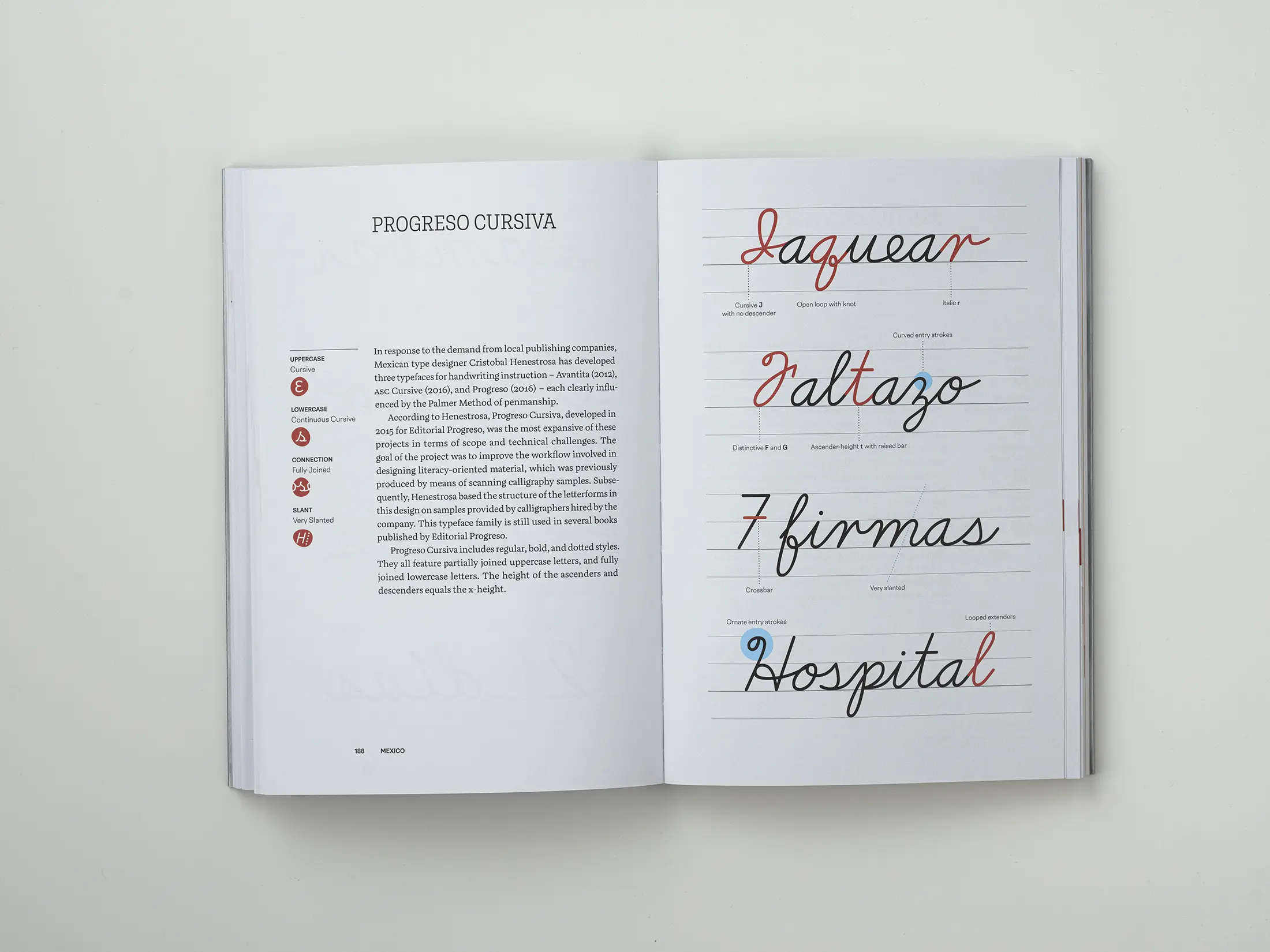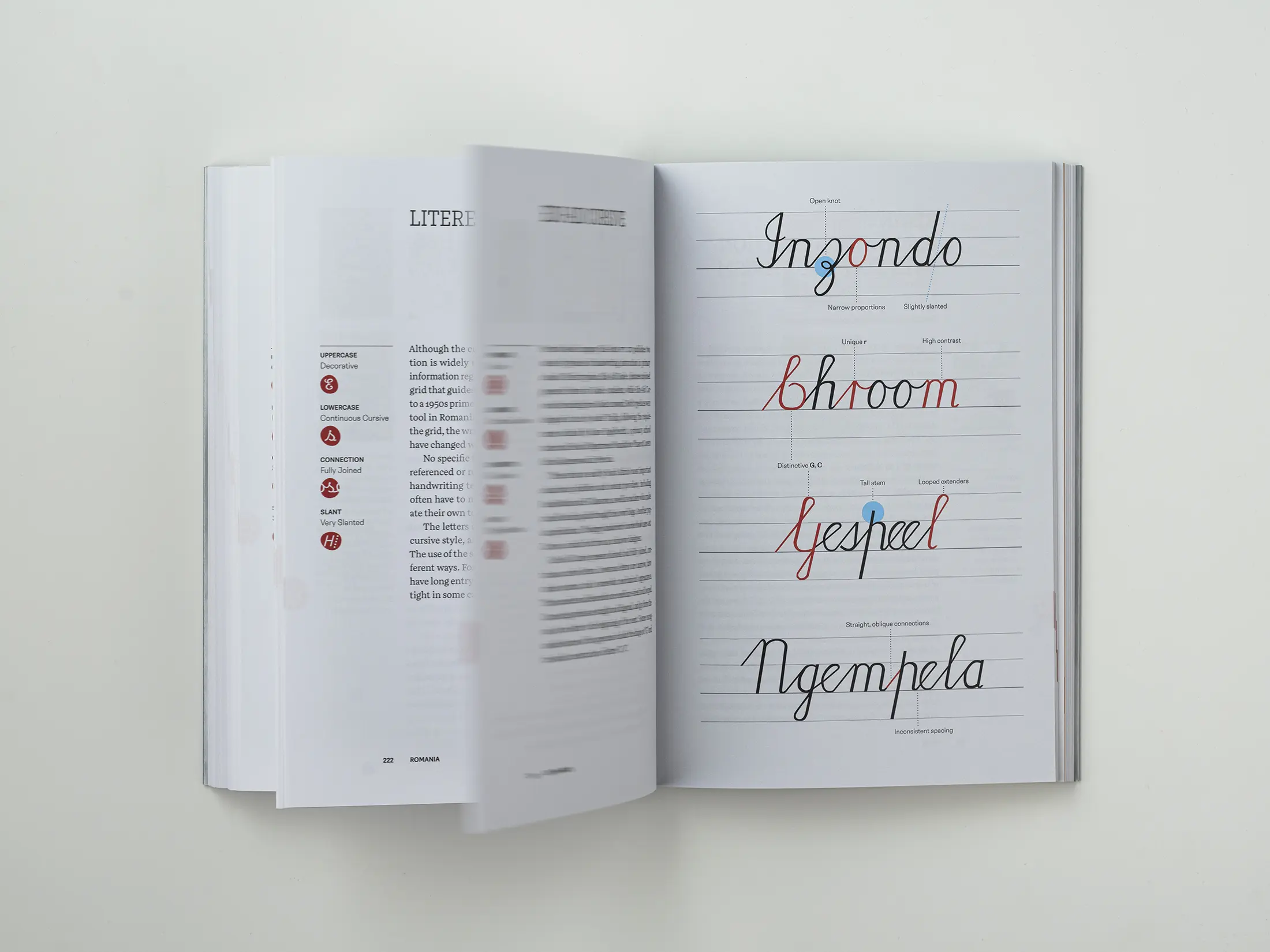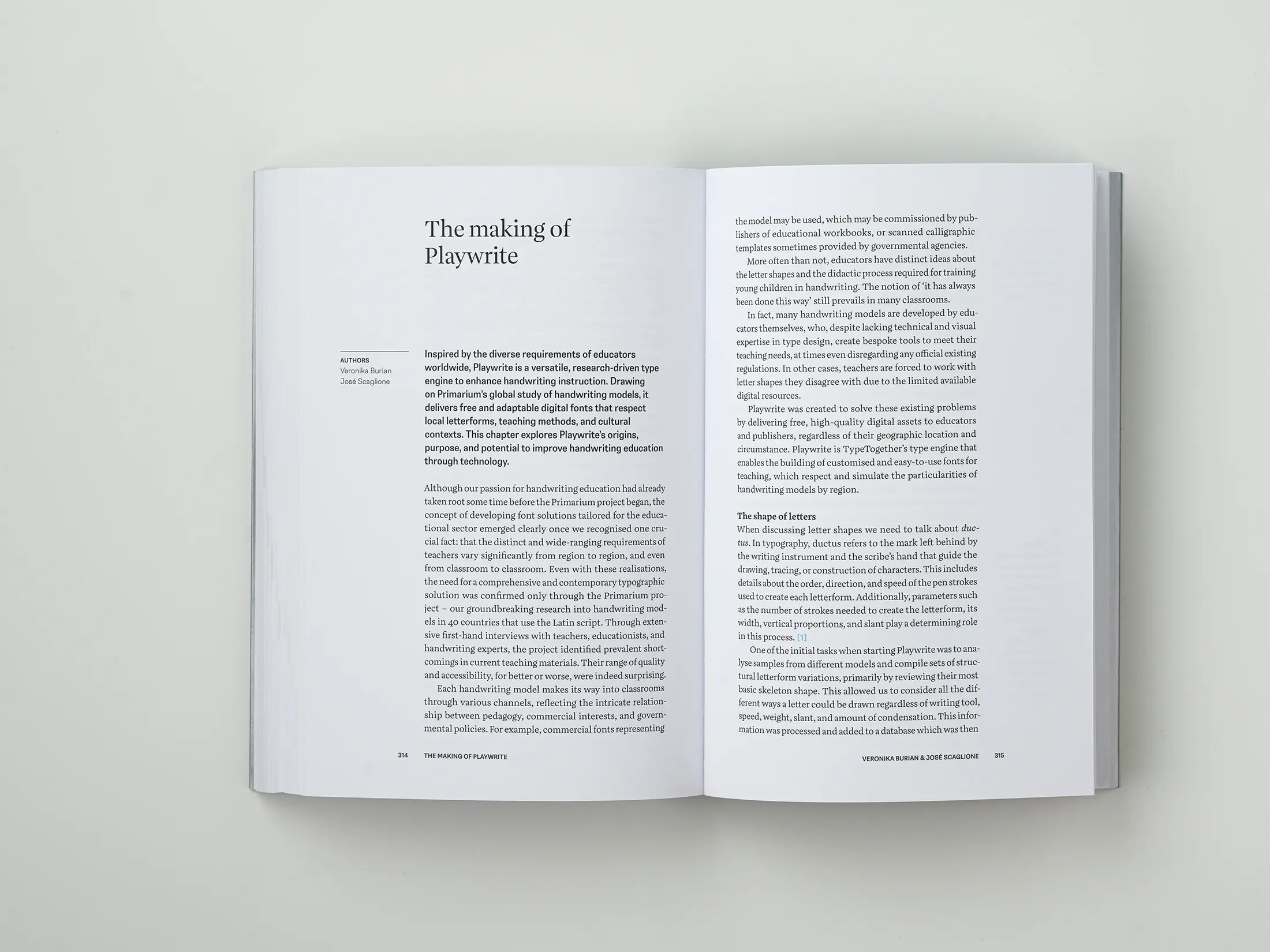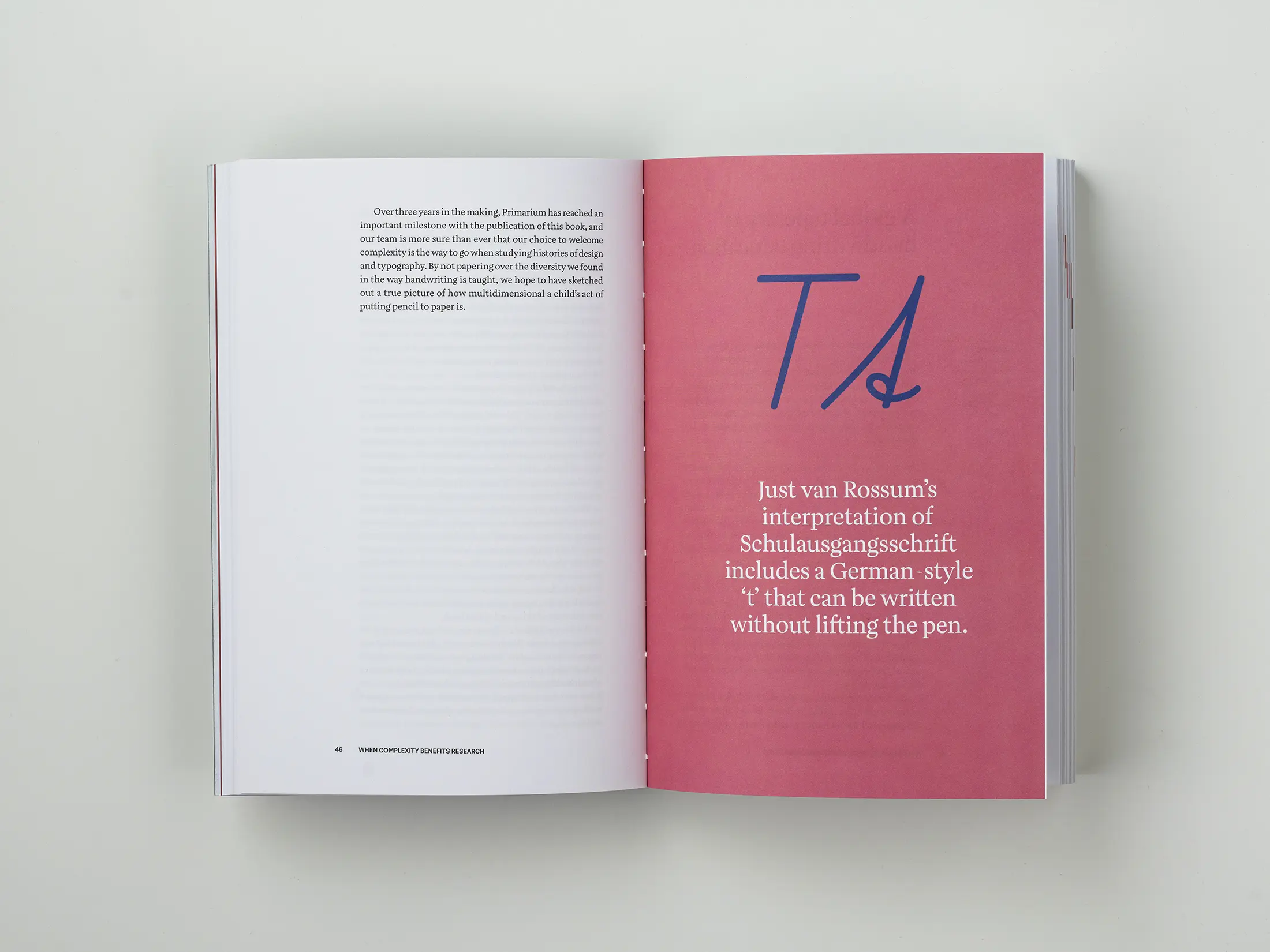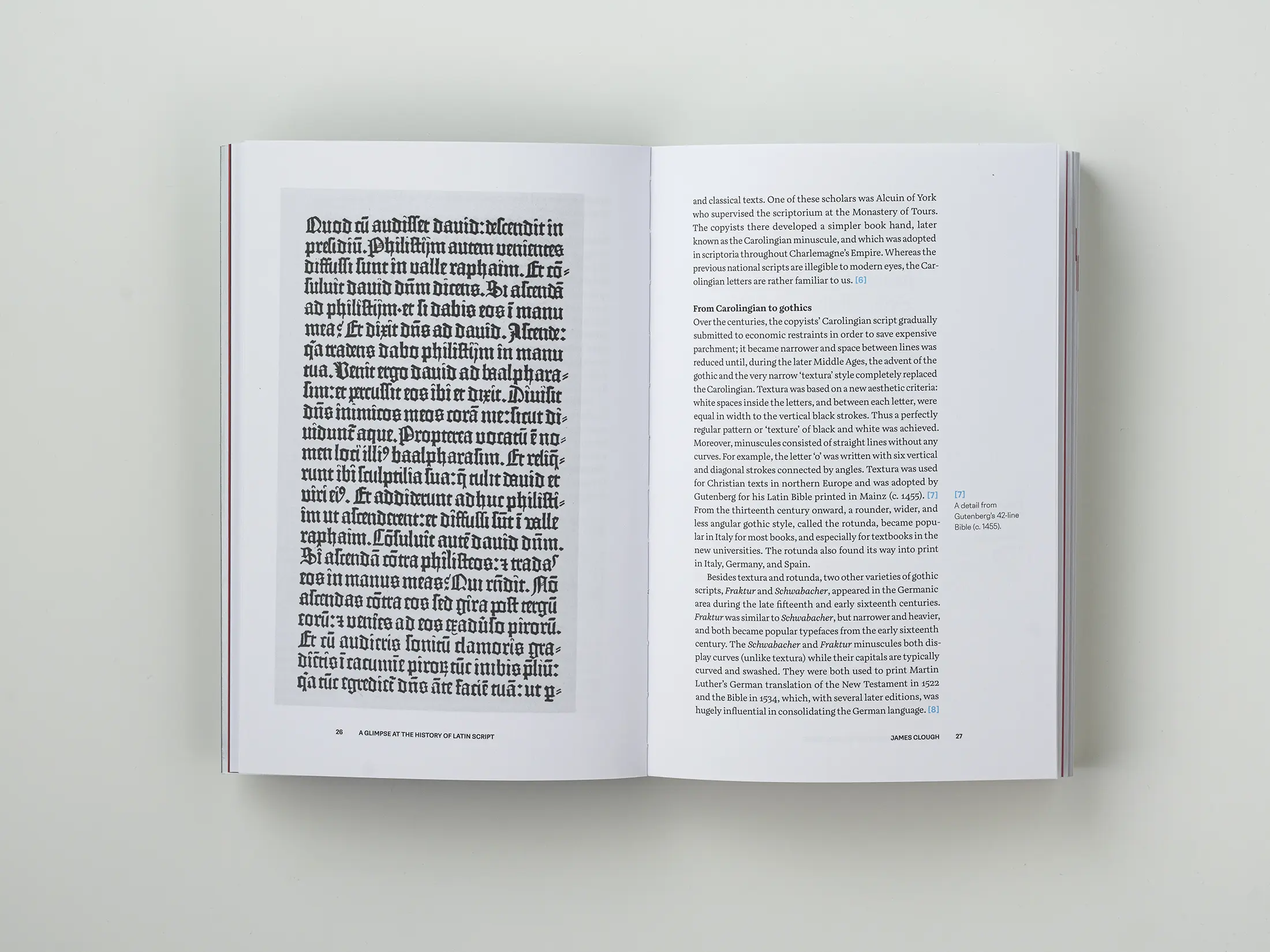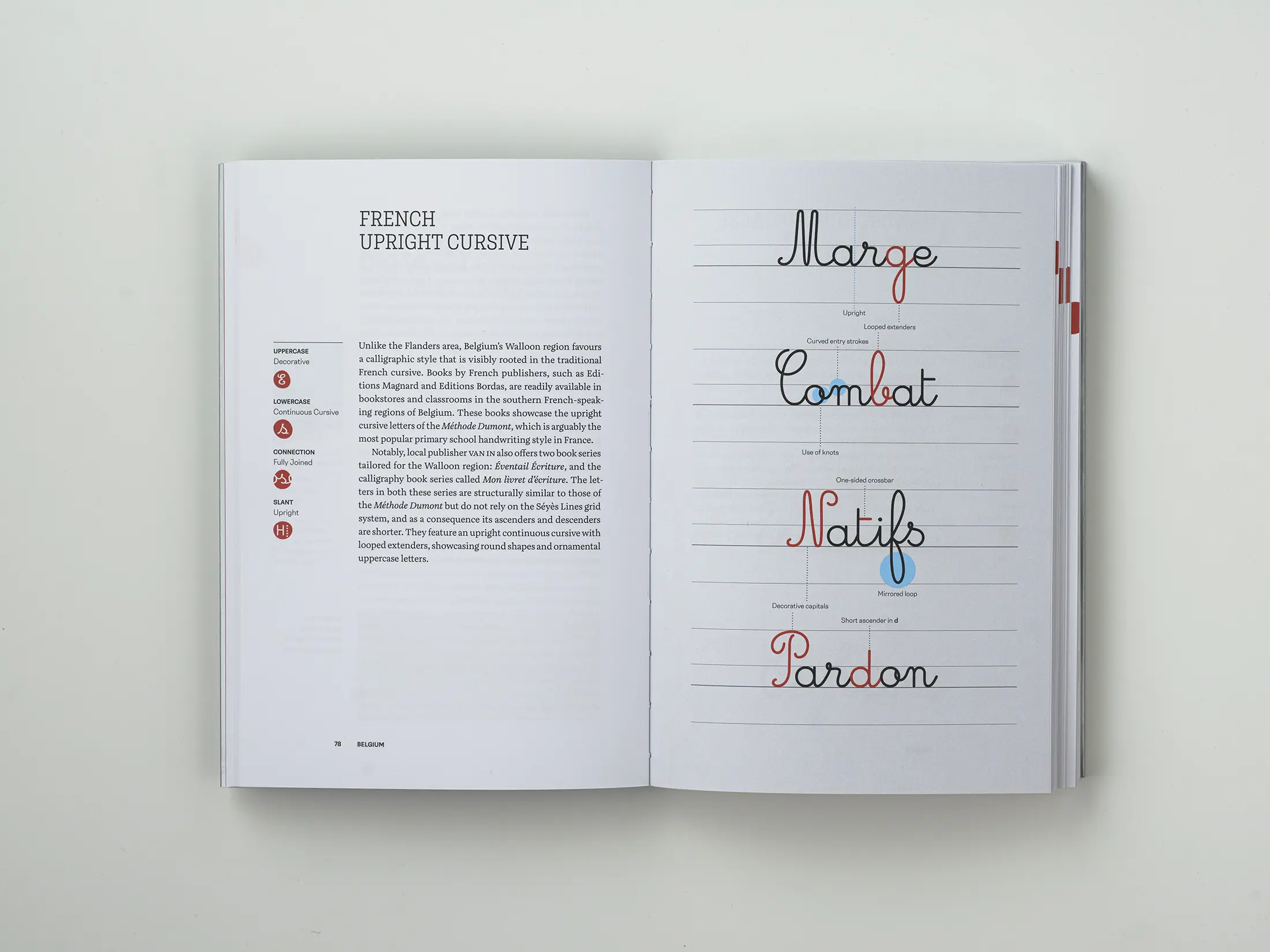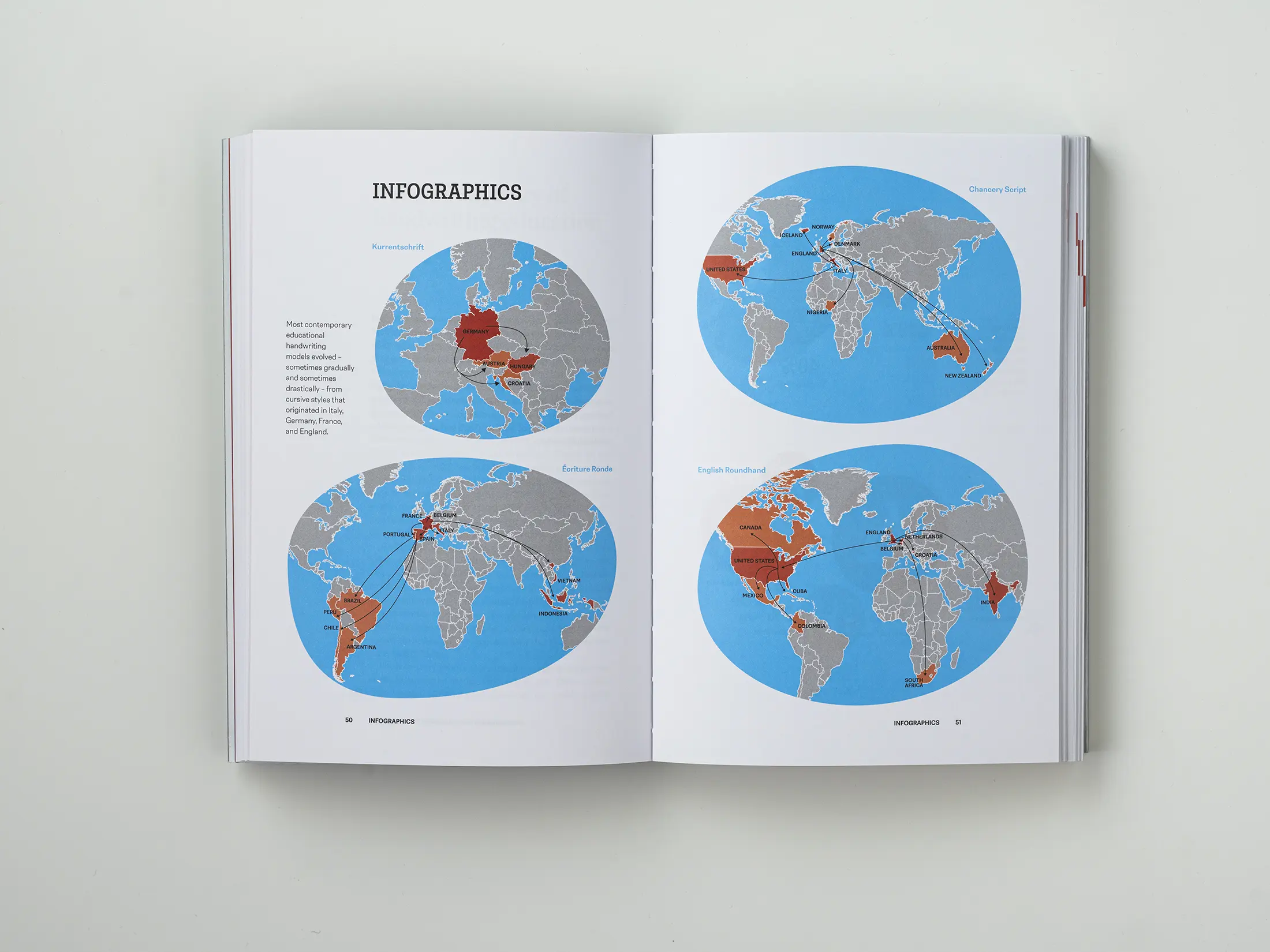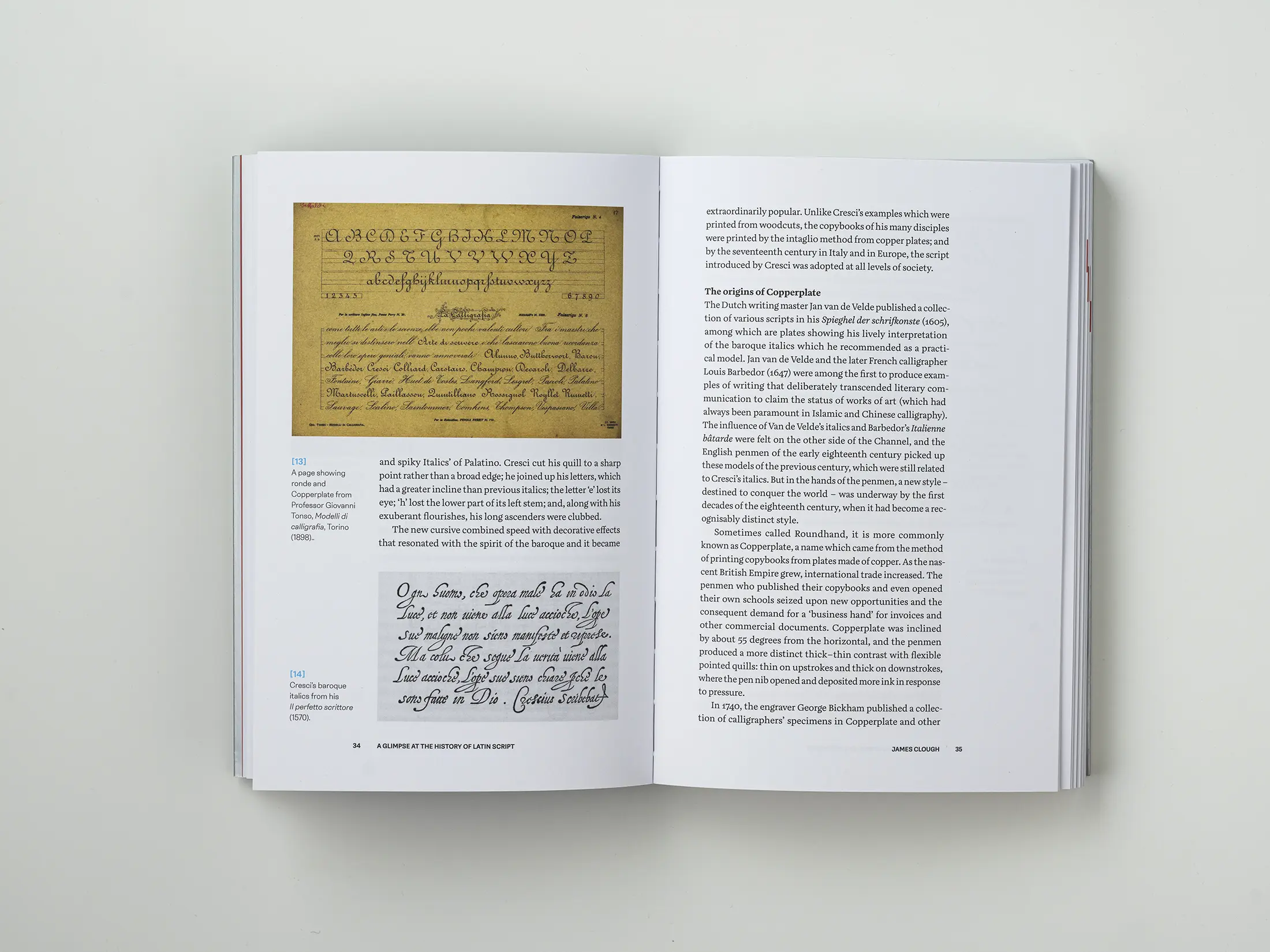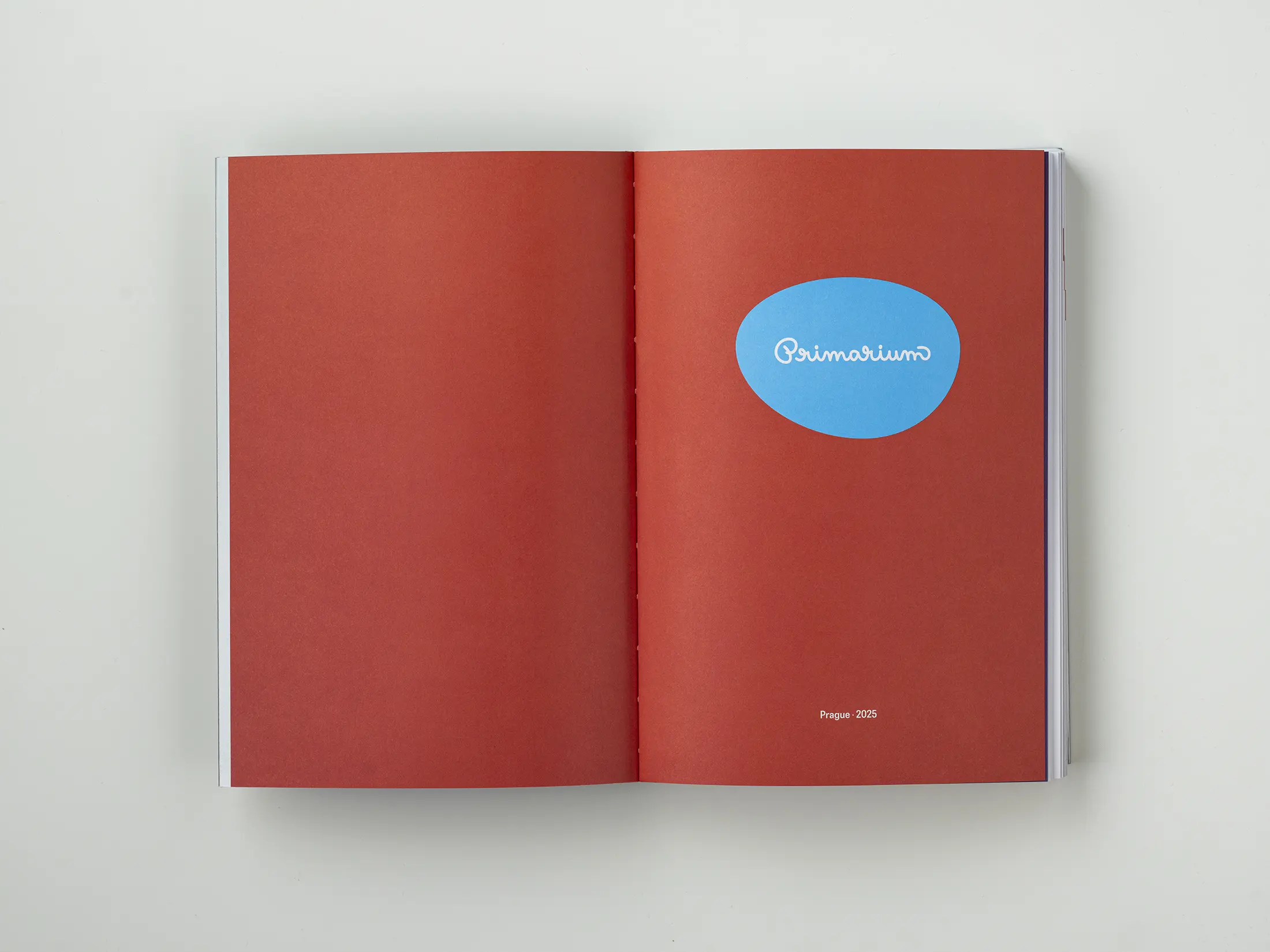
Primarium: Handwriting education across cultures and continents — printed book
The Primarium book comprehensively documents Latin-based handwriting education across 40 countries. Based on extensive, groundbreaking research over several years, this volume reveals how local history, cultural factors, and educational reforms have shaped diverse handwriting models. It identifies common challenges faced by educators and summarises key findings by examining entrenched misconceptions, modern policy changes, and global influences. While highlighting the scope, methodology, and significance of the research behind the project, Primarium further provides various insights for those seeking to preserve, adapt, and evolve handwriting instruction worldwide.
TABLE OF CONTENTS
Pooja Saxena: Foreword
Ann Bessemans: Handwriting for cognitive development, brain development & learning
James Clough: A glimpse at the history of Latin script
Pooja Saxena: When complexity benefits research
Cecilia Brarda, Veronika Burian, Sandro Fetter, Pooja Saxena and José Scaglione: A global tapestry of handwriting education
Argentina‭, ‬Australia‭, ‬Austria‭, ‬Belgium‭, ‬Brazil‭, ‬Canada‭, ‬Chile‭, ‬Colombia‭, ‬Croatia‭, ‬Cuba‭, ‬Czech Republic‭, ‬Denmark‭, ‬England‭, ‬Finland‭, ‬France‭, ‬Germany‭, ‬Hungary‭, ‬Iceland‭, ‬India‭, ‬Indonesia‭, ‬Ireland‭, ‬Italy‭, ‬Mexico‭, ‬Netherlands‭, ‬New Zealand‭, ‬Nigeria‭, ‬Norway‭, ‬Peru‭, ‬Poland‭, ‬Portugal‭, ‬Romania‭, ‬Slovakia‭, ‬Slovenia‭, ‬South Africa‭, ‬Spain‭, ‬Sweden‭, ‬Tanzania‭, ‬Turkey‭ (‬Türkiye‭), ‬United States of America‭, ‬Vietnam
Veronika Burian & José Scaglione: An overview of the Primarium data
Anca-Georgiana Simion: Handwriting in the digital classroom: Integrating old and new
Veronika Burian & José Scaglione: The making of Playwrite
Glossary
Primarium team and authors
Collaborators
Bibliography
Index
Typefaces Aneto & Belarius